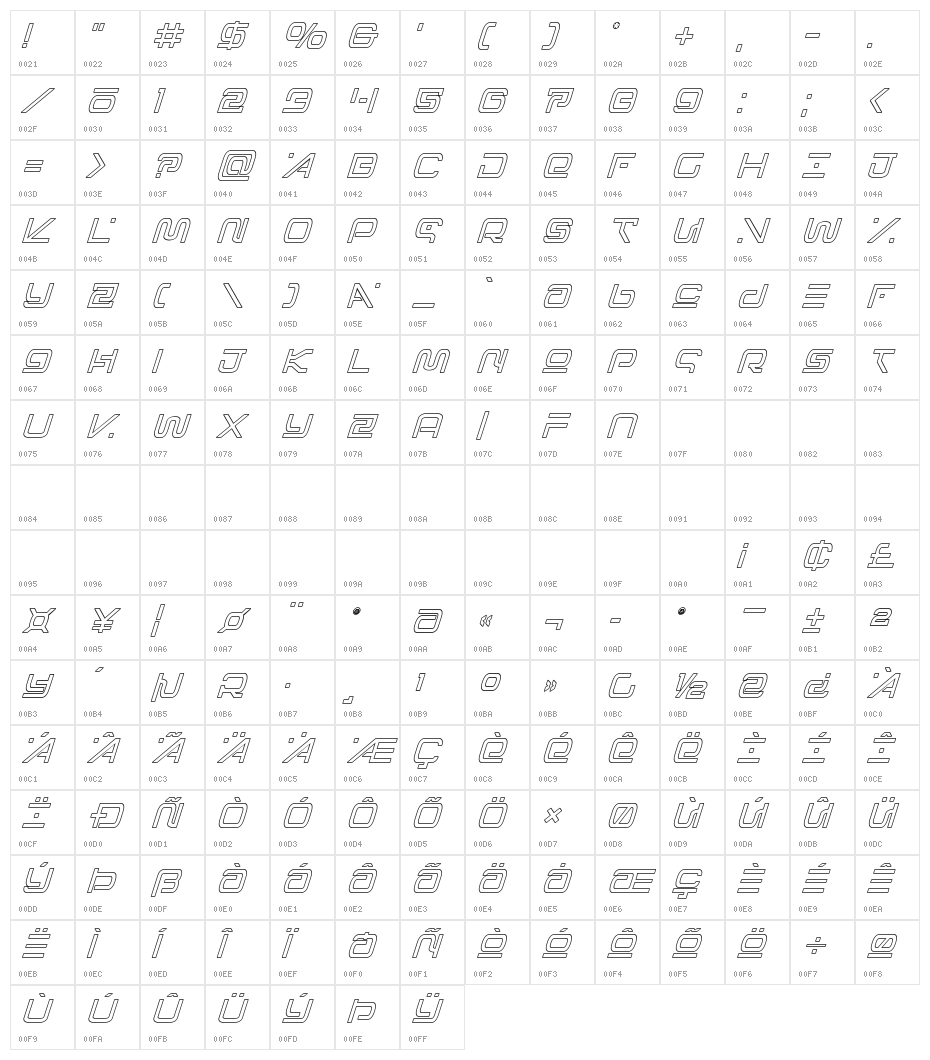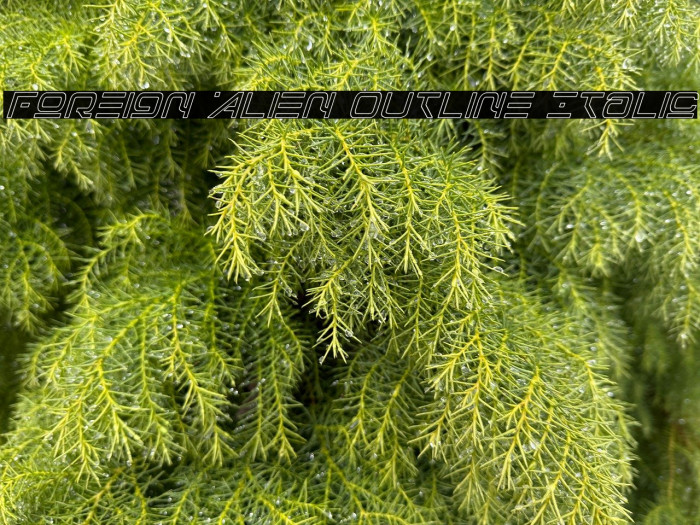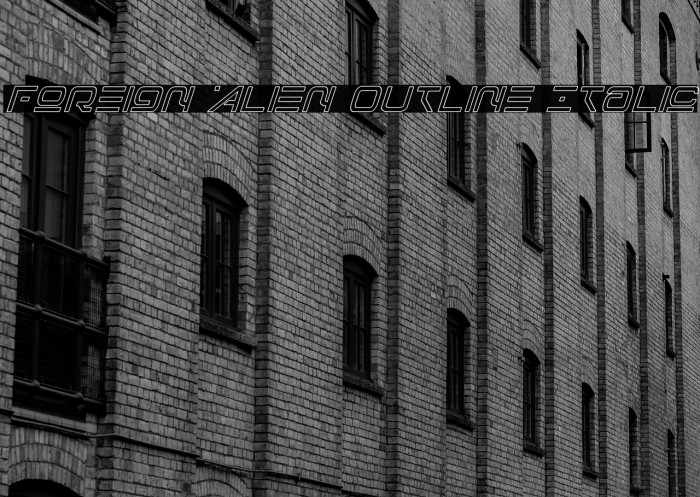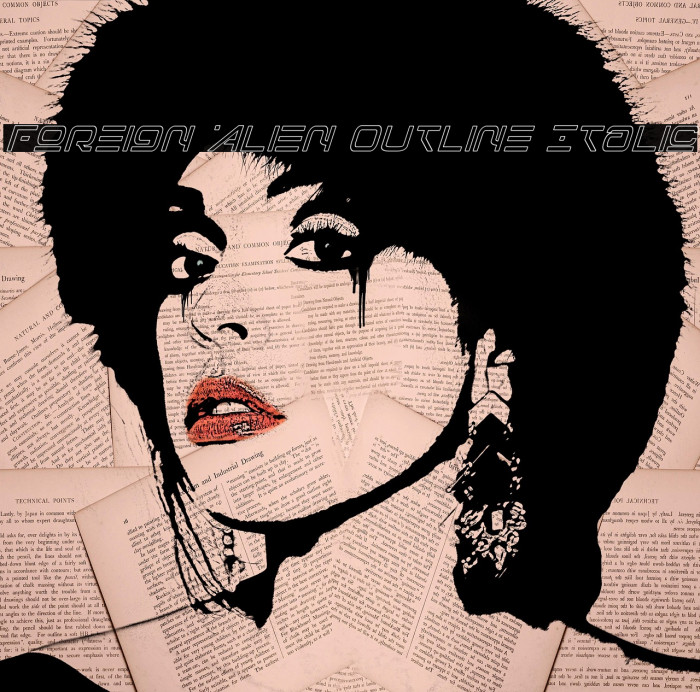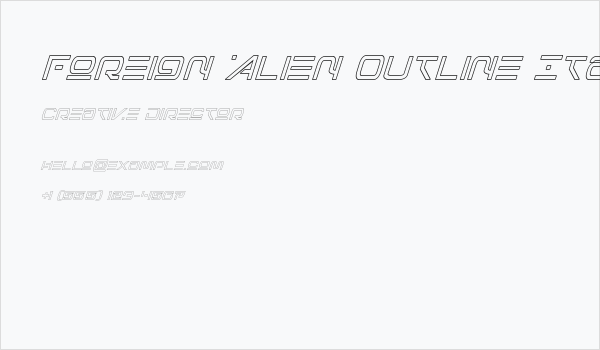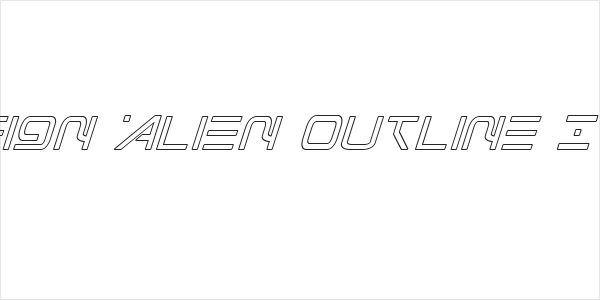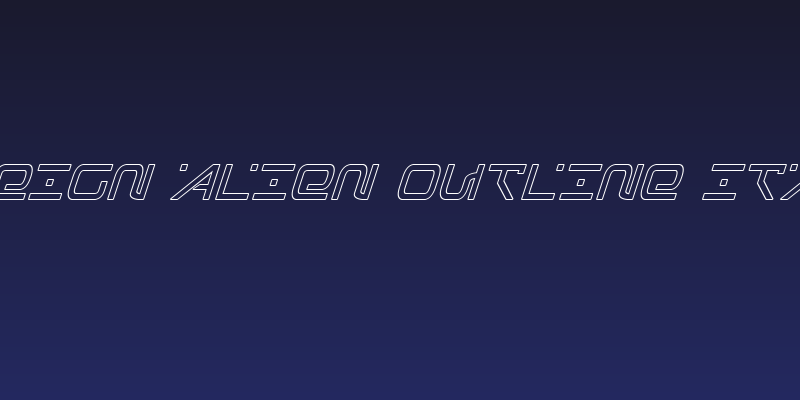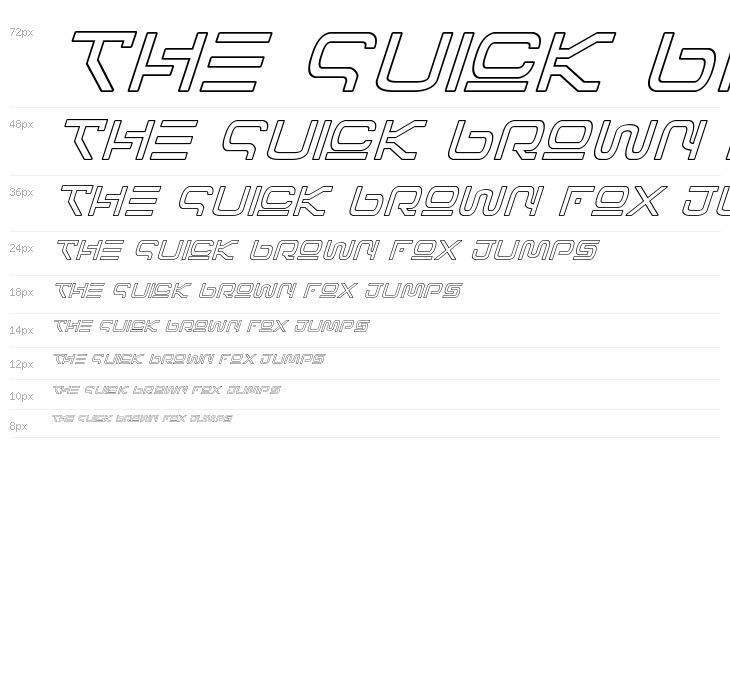
Foreign Alien Outline Italic Font
Foreign Alien Outline Italic Description
This font features a futuristic and geometric design with an outline style that gives it a sleek and modern appearance. The italic slant adds a dynamic and forward-moving feel, making it ideal for projects that require a sense of speed or innovation. The characters are constructed with clean, straight lines and sharp angles, creating a sense of precision and technicality. The uppercase and lowercase letters maintain a consistent style, while the numbers and special characters complement the overall aesthetic. This font's unique design makes it stand out, perfect for creative and bold applications.